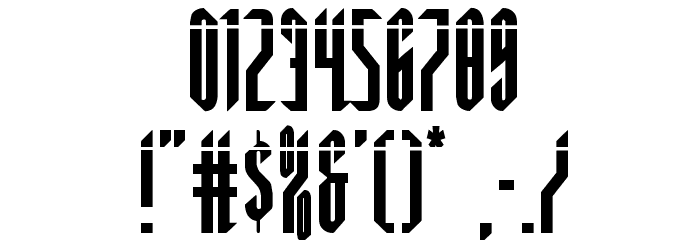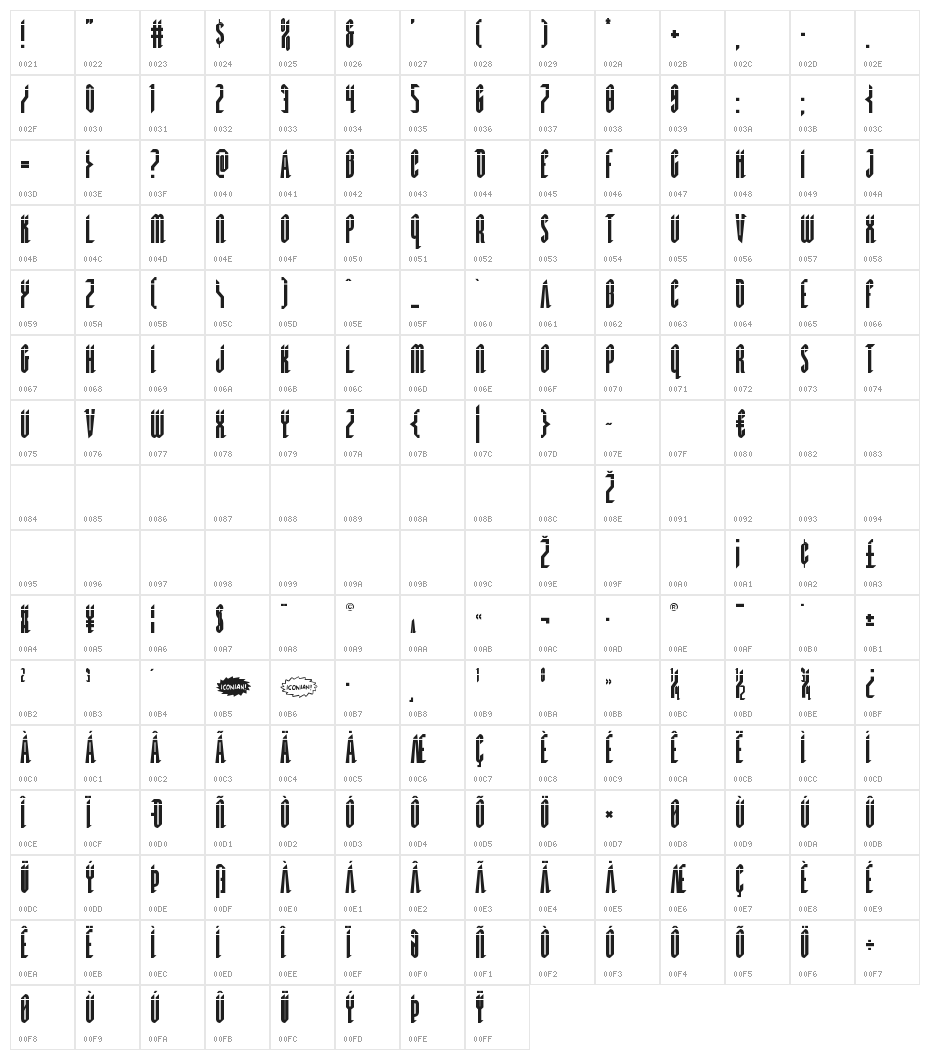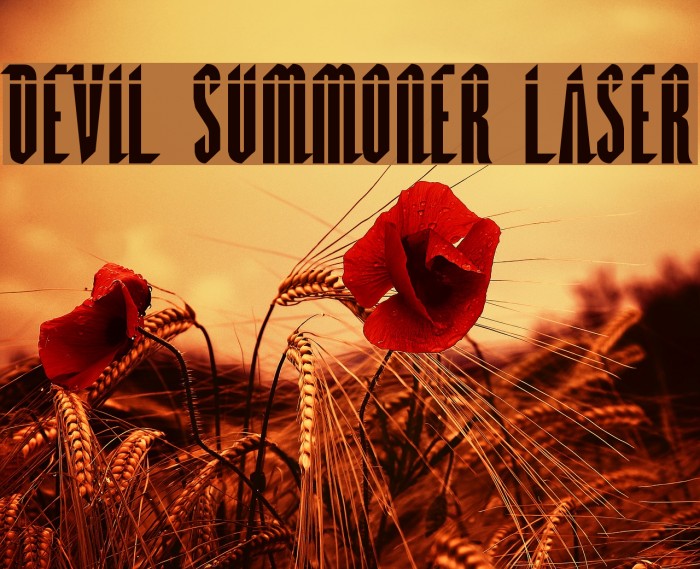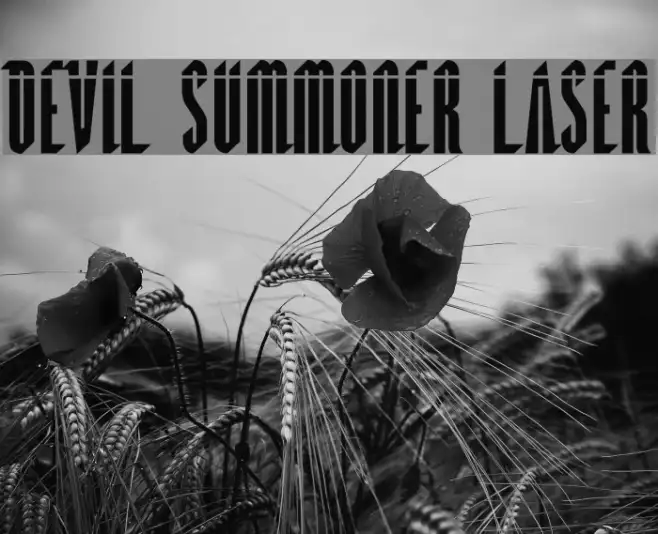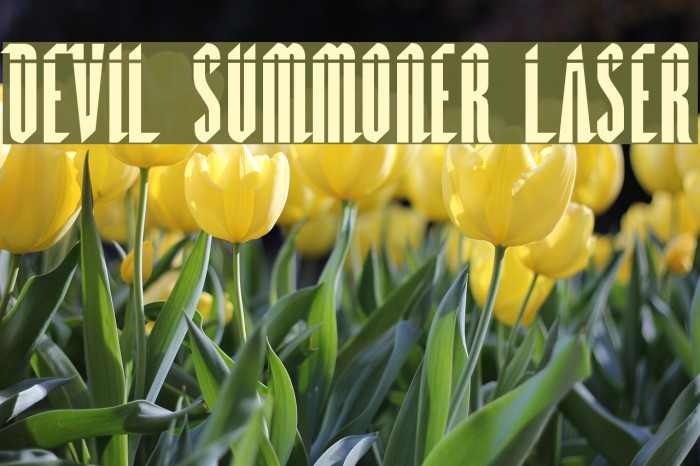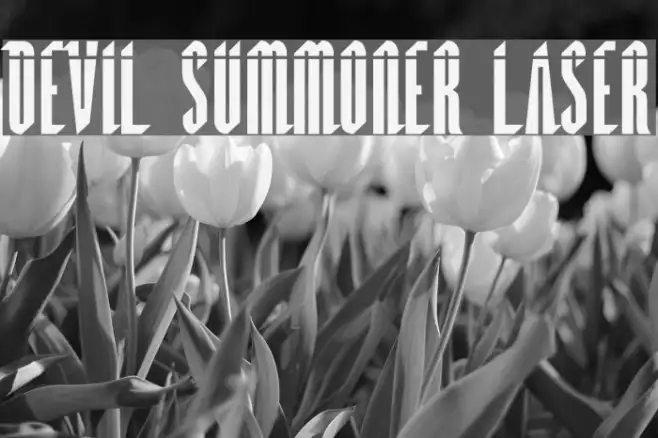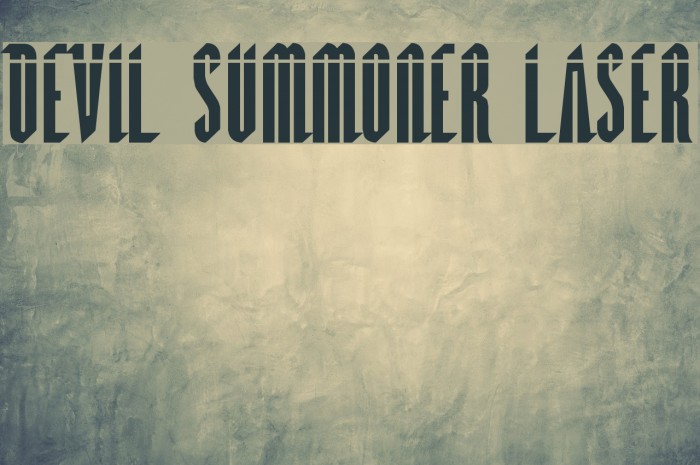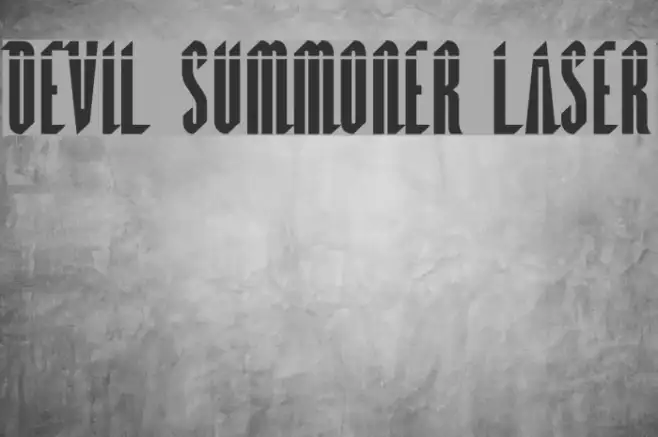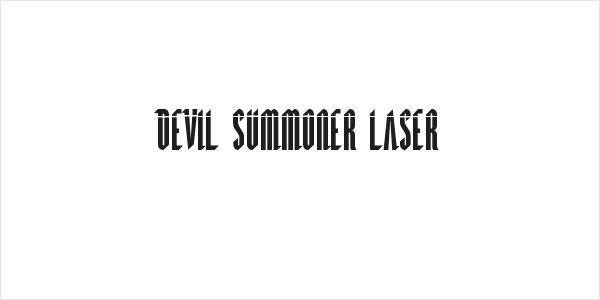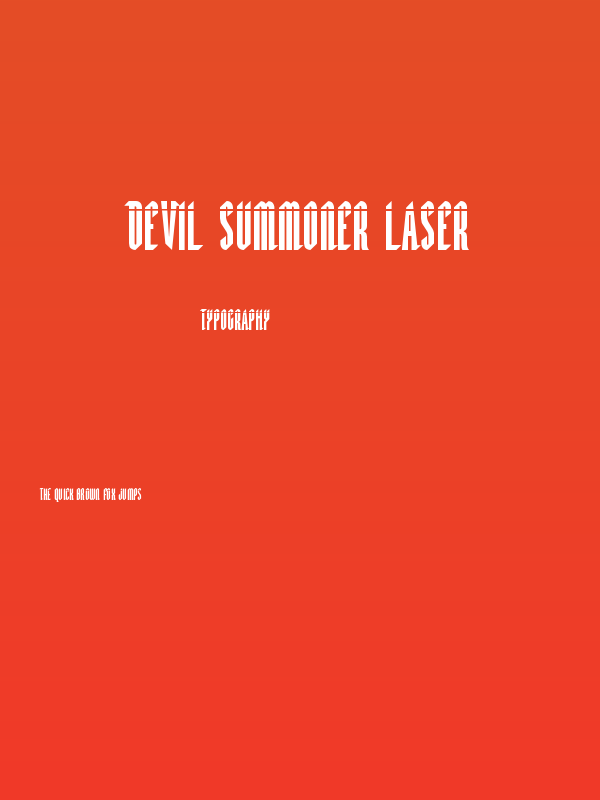
Devil Summoner Laser Font
Devil Summoner Laser Description
This font features a bold and striking design with sharp, angular edges and a futuristic aesthetic. The characters are tall and narrow, giving them a condensed appearance. The uppercase letters are particularly prominent, with a strong vertical emphasis and minimal curves, creating a sense of power and modernity. The lowercase letters maintain the same angular style, ensuring consistency throughout the typeface. Numbers and special characters are designed to match the overall theme, making them suitable for attention-grabbing headlines or titles. The font's unique style is ideal for projects that require a bold and modern look.